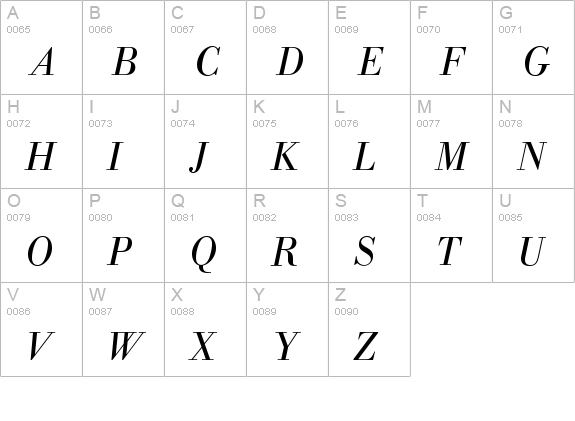
Bodoni Berthold Exp BQ Light Italic OsF Font Details
Bodoni Berthold Exp BQ Light Italic OsF is a refined, elegant, italic variant in the Bodoni typeface family \xE2\x80\x94 well suited to elegant body text, refined sub-headings, and luxury branding.
Bodoni Berthold Exp BQ Light Italic OsF font is a timeless and elegant typeface that exudes sophistication and grace. Its slender and stylish design is perfect for adding a touch of class to any project, whether it be for print or digital use. The delicate italic style of this font adds a sense of movement and fluidity, making it ideal for conveying a sense of elegance and refinement. The Bodoni Berthold Exp BQ Light Italic OsF font is not only visually appealing but also highly versatile, making it suitable for a wide range of design applications. Whether you are creating a wedding invitation, a business card, or a website, this font will bring a sense of sophistication to your project. What's even better is that this exquisite font is freely available to download at FontsMarket.com. So, if you want to elevate your design work with a touch of elegance, be sure to check out Bodoni Berthold Exp BQ Light Italic OsF font today!